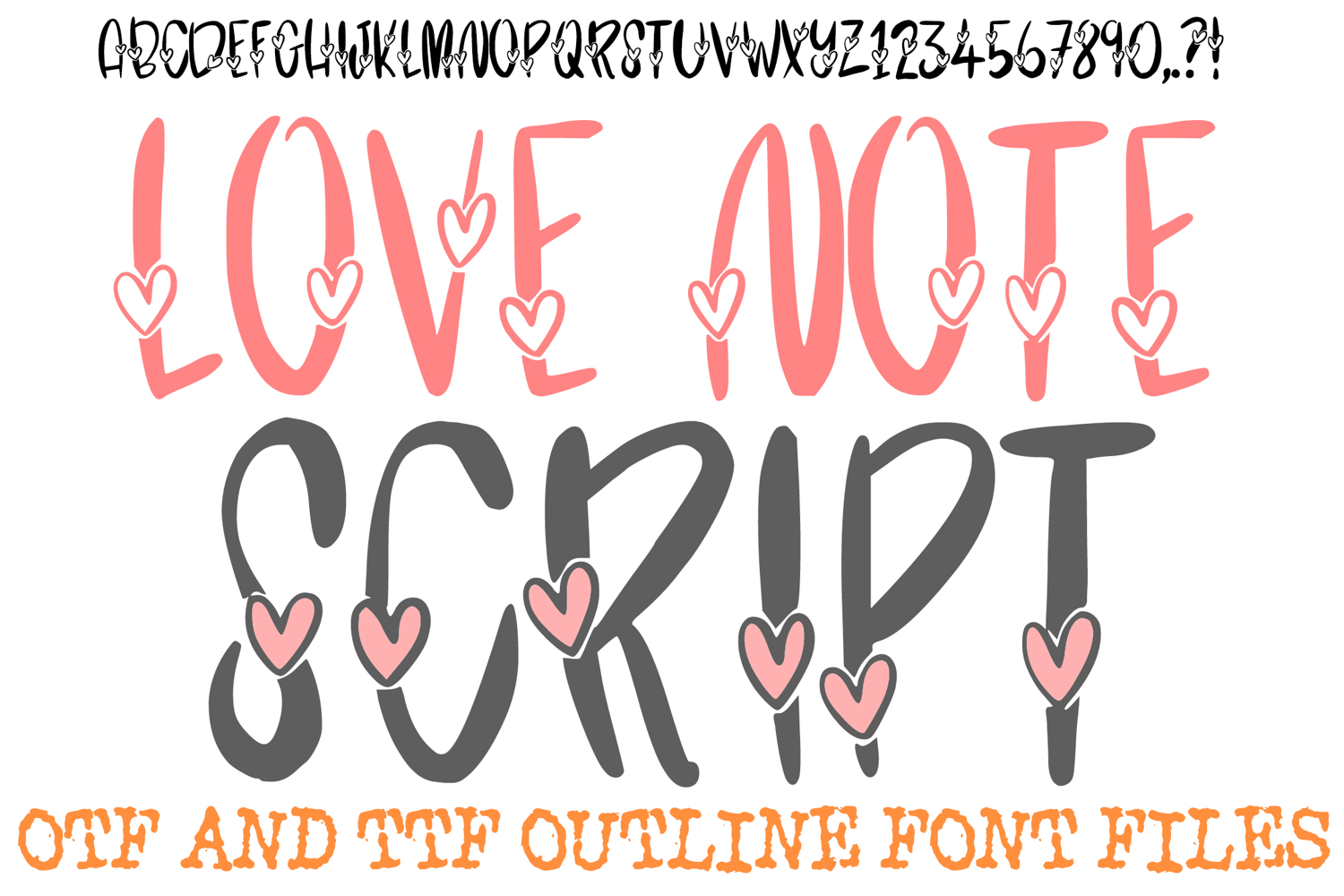
Love Note Script Font Marker Love Valentines Doodle OTF
Spread love with the Love Note Script Font! This elegant hand-drawn display alphabet features slender, flowing characters filled with charming, small hearts for a playful and romantic look. It is the perfect choice for Valentine's Day branding, wedding invitations, sweet social media headlines, and creative digital scrapbooking.
The handwritten feel of each character makes your text stand out, providing a sense of intimate charm without losing legibility. Whether you are creating a romantic gift tag or an aesthetic logo with a sweet twist, the Love Note Script Font delivers a fun, professional look that captures attention instantly.
Charming Hidden Hearts: Every character features small, hand-drawn hearts incorporated into the slender, flowing shape.
Playful Aesthetic Perspective: The characters have a slim, elegant, marker-like aesthetic that brings a joyful charm to your words.
Hand-Drawn Artisan Feel: The natural, effortless lines provide a genuine, hand-inked look that avoids the stiffness of standard digital fonts.